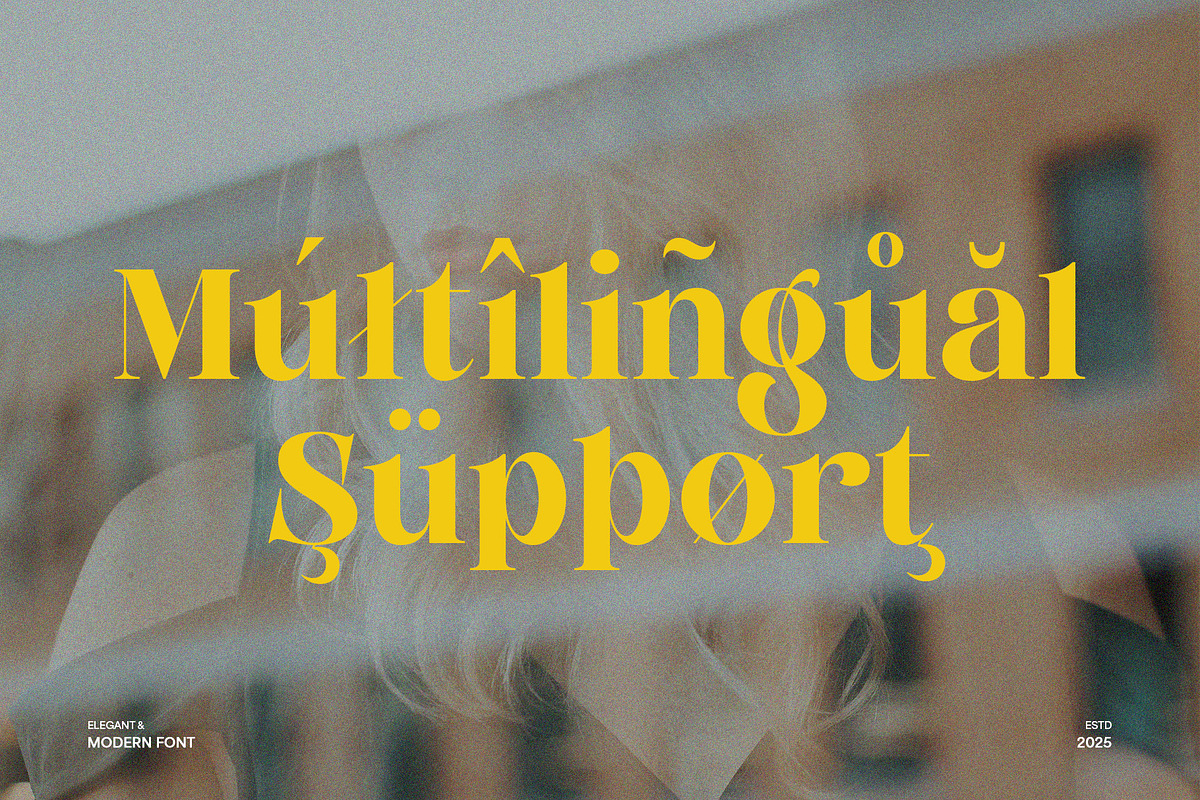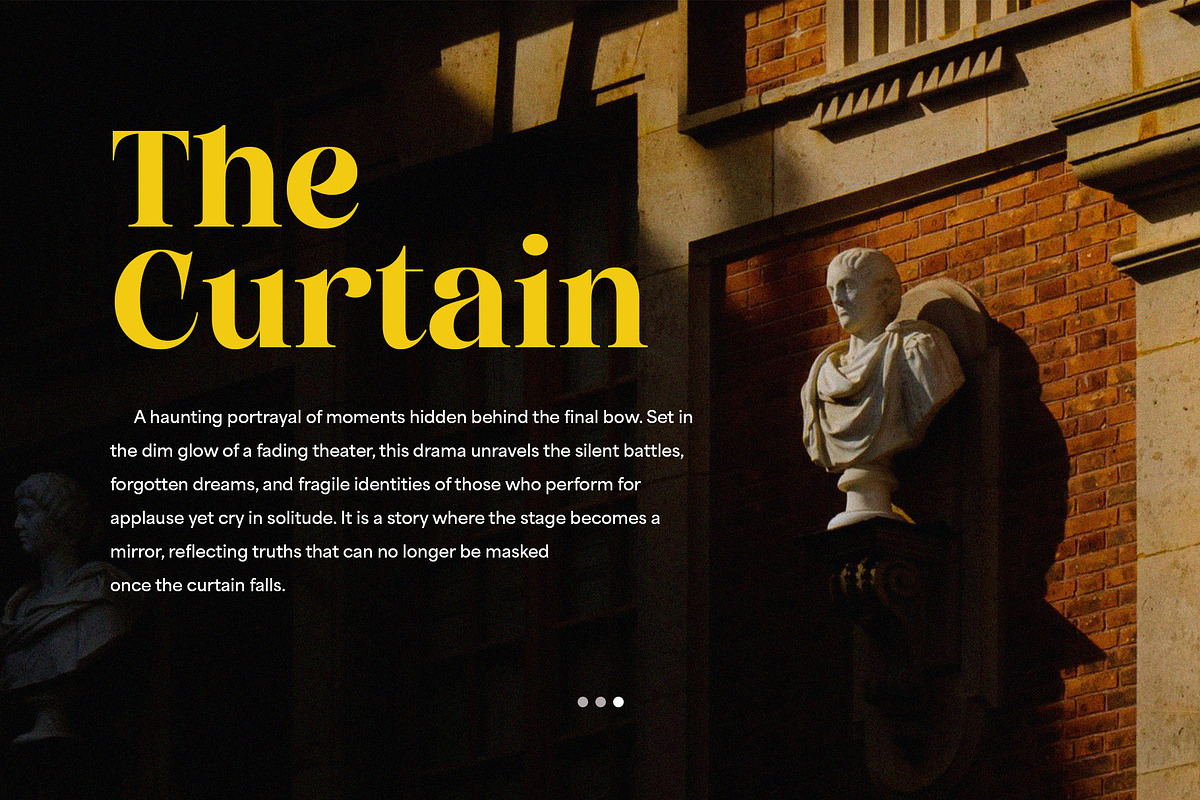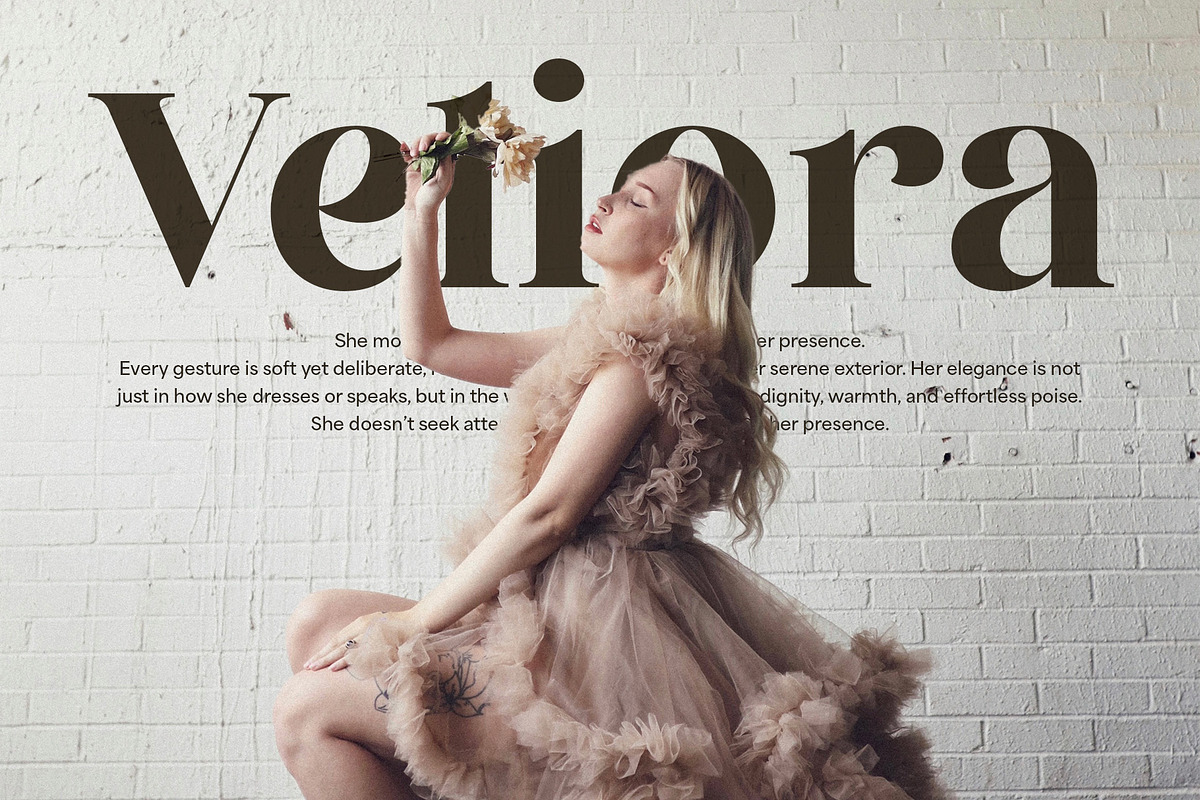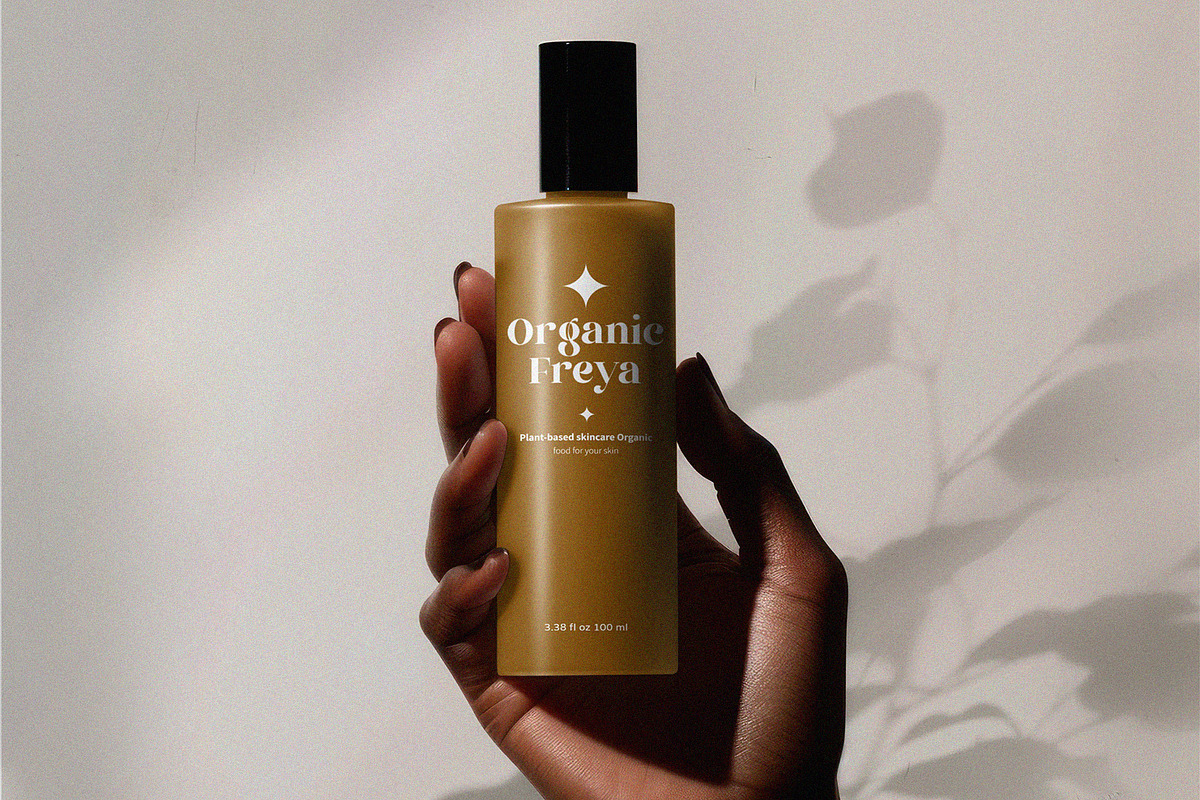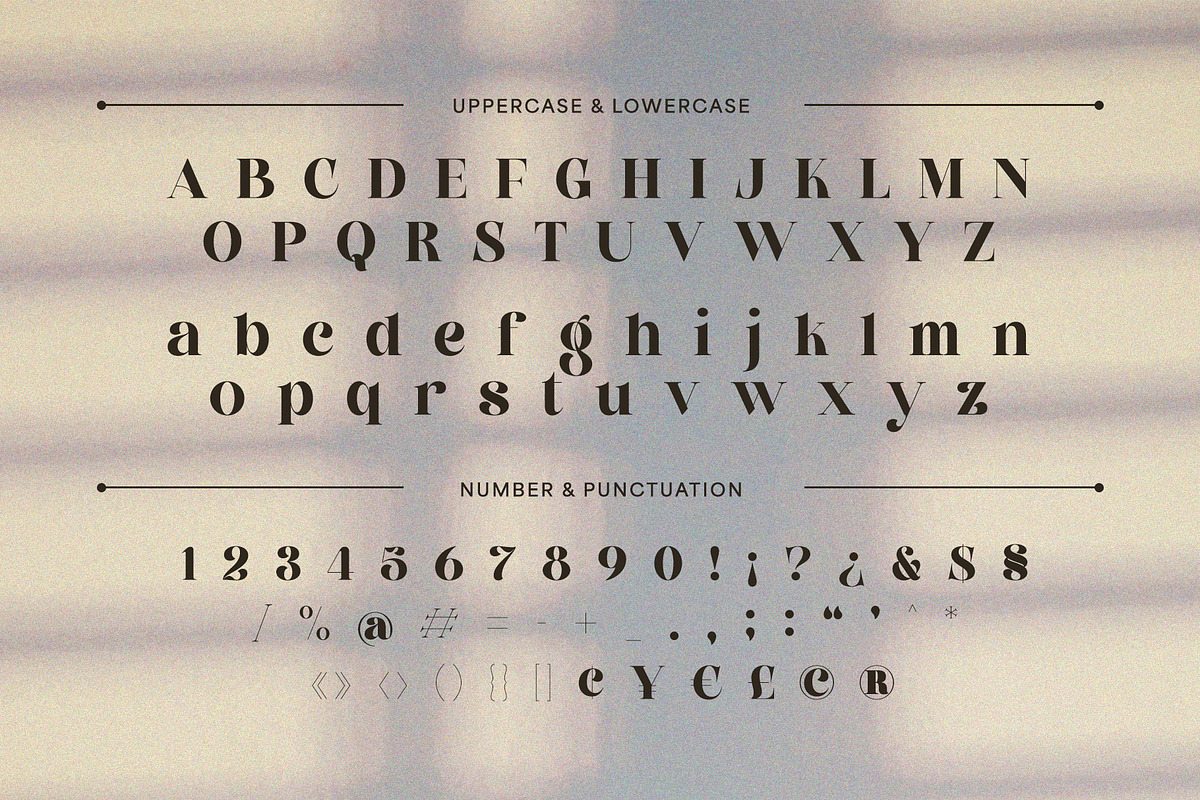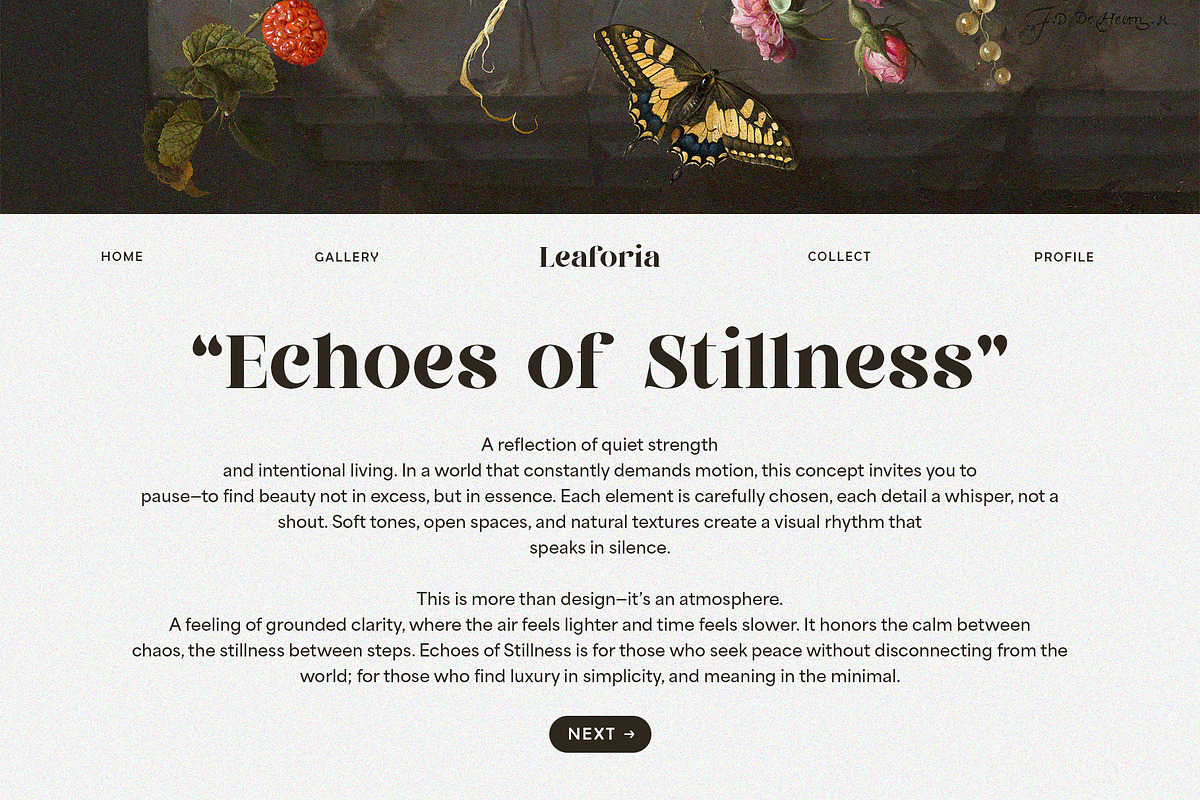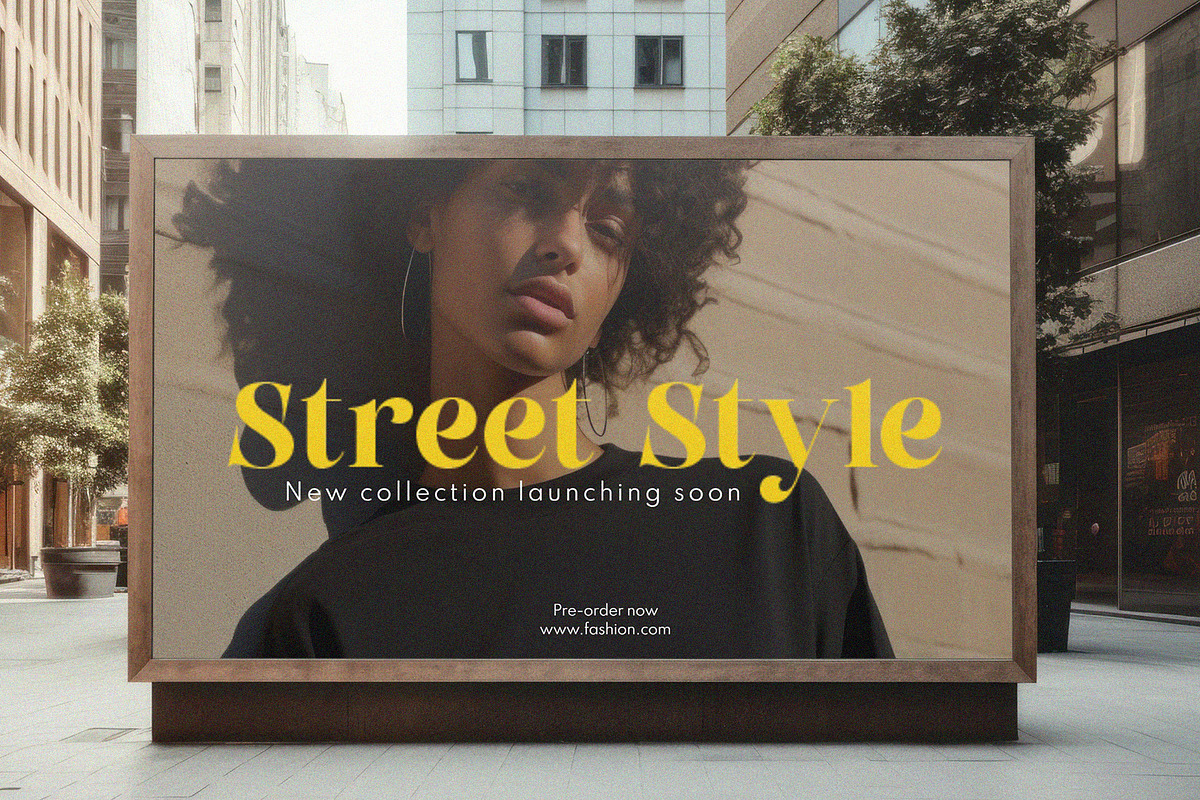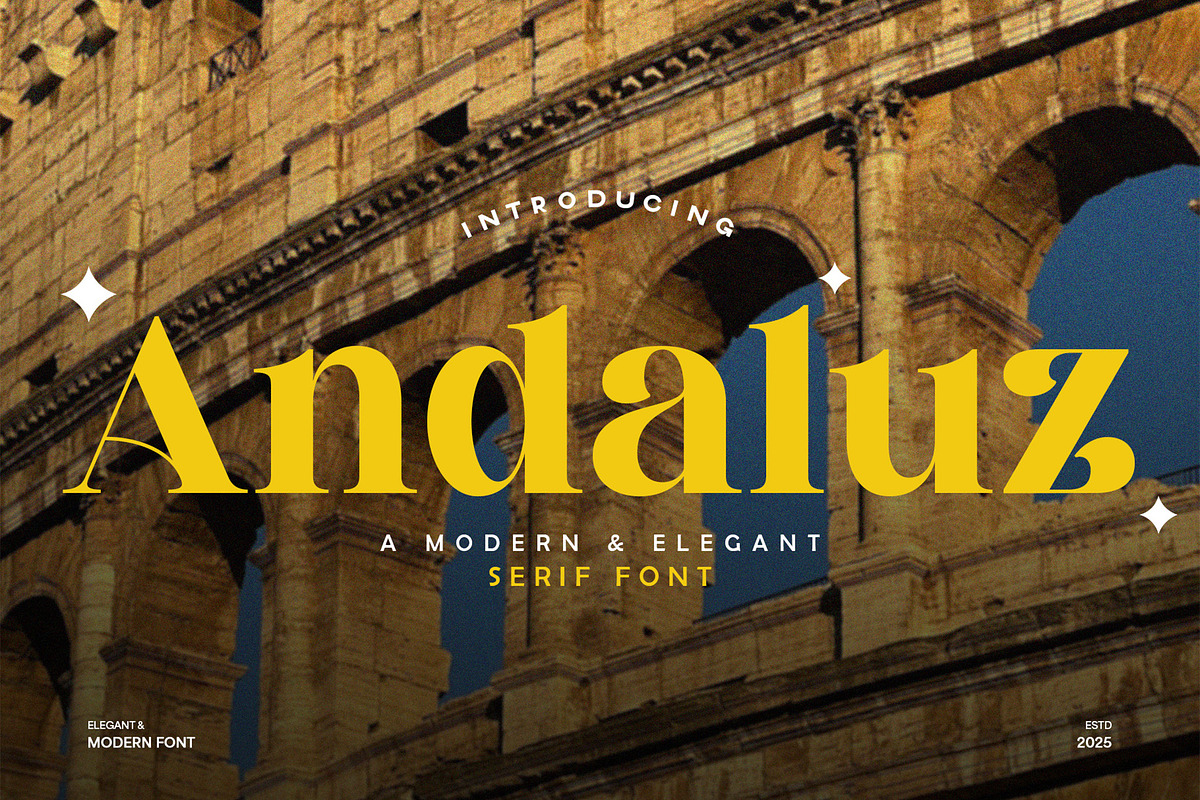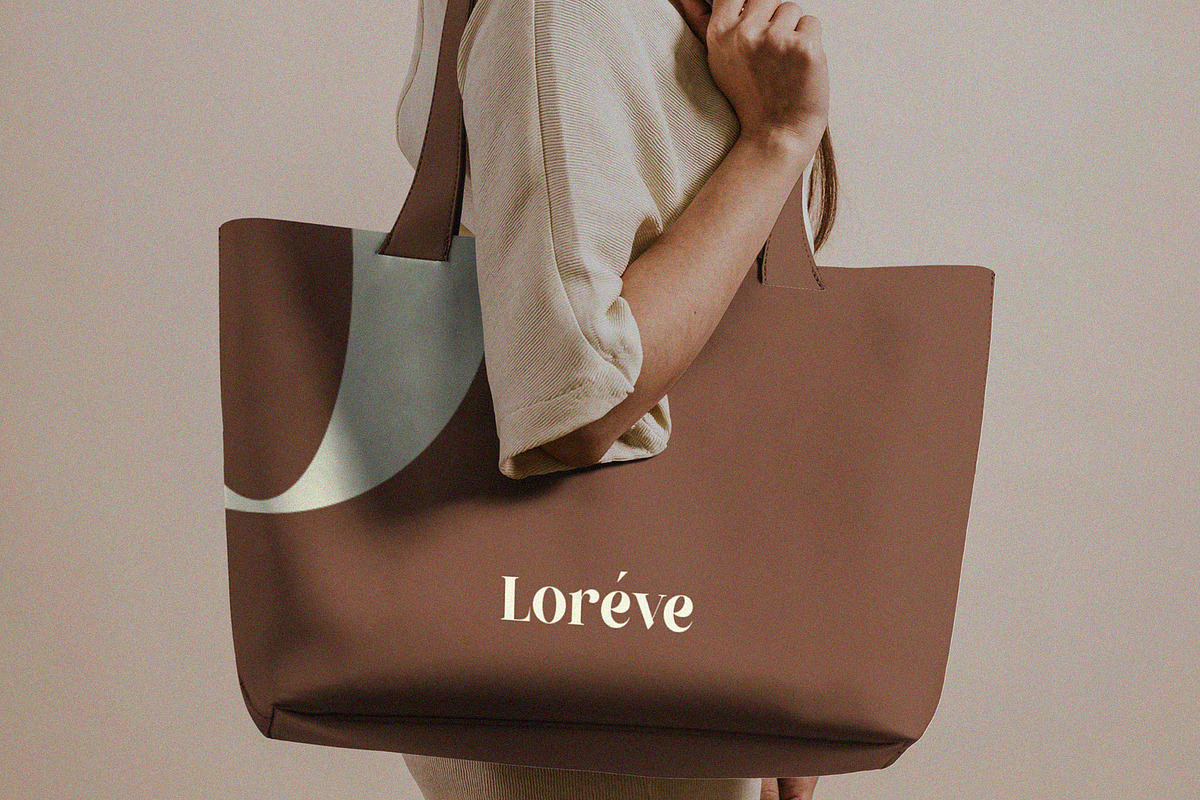
Andaluz - Modern & Elegant Serif
Discover Andaluz, a captivating modern and elegant serif font that beautifully merges classic sophistication with a contemporary aesthetic. Inspired by timeless design, Andaluz is perfect for luxury branding, editorial layouts, high-end packaging, architectural firms, cultural institutions, and projects seeking a refined and authoritative presence. Its well-balanced proportions and distinctive serifs provide exceptional readability and a compelling visual appeal. Andaluz exudes a sense of heritage yet feels undeniably current, making it a versatile choice for designers aiming for a sophisticated, historical, or classic modern look. Elevate your typography with Andaluz, a font that brings enduring charm and a touch of grandeur to any creative endeavor.